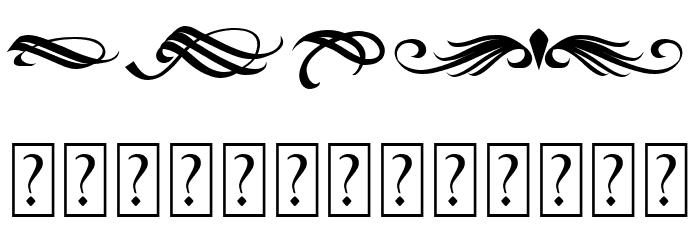
Black Gunslinger Ornament Font
This font is a decorative and ornamental typeface featuring intricate and elaborate designs. The characters are replaced with question marks, indicating a placeholder or missing elements. The central row showcases ornate flourishes and swashes, adding a sense of elegance and complexity. These elements suggest a style that is both artistic and sophisticated, suitable for decorative purposes. The overall appearance is bold and striking, with high contrast between thick and thin strokes, emphasizing the ornamental nature of the design.
A decorative and ornamental typeface with intricate flourishes.
- Font: Black Gunslinger Ornament
- Proposed Projects: Ideal for decorative projects, invitations, vintage-themed designs, and artistic compositions.
- Use Case: Logos, Invitations, Decorative elements